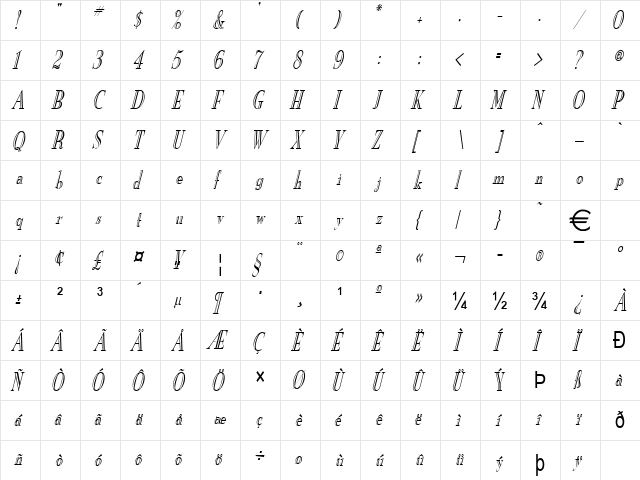
NewEngEngrCondensed Italic Font Preview
Design Context for NewEngEngrCondensed Typeface
NewEngEngrCondensed is a composed and adaptable typeface that performs quietly and consistently across a wide range of design contexts. The dynamic lean of this cut emphasises speed and emphasis in any layout. The condensed width makes it efficient for tight spaces without sacrificing legibility.
Pro Tip: Try NewEngEngrCondensed for annotation and caption copy alongside an upright companion — the contrast in angle creates a dynamic but ordered typographic system.